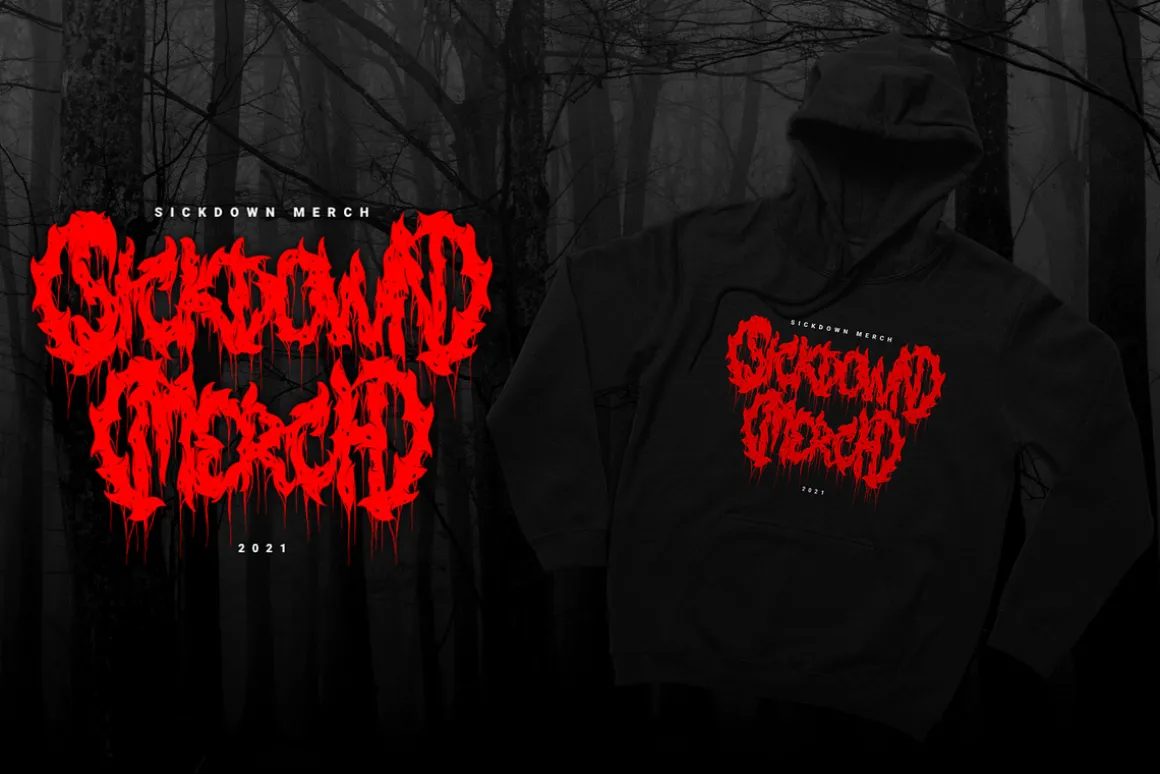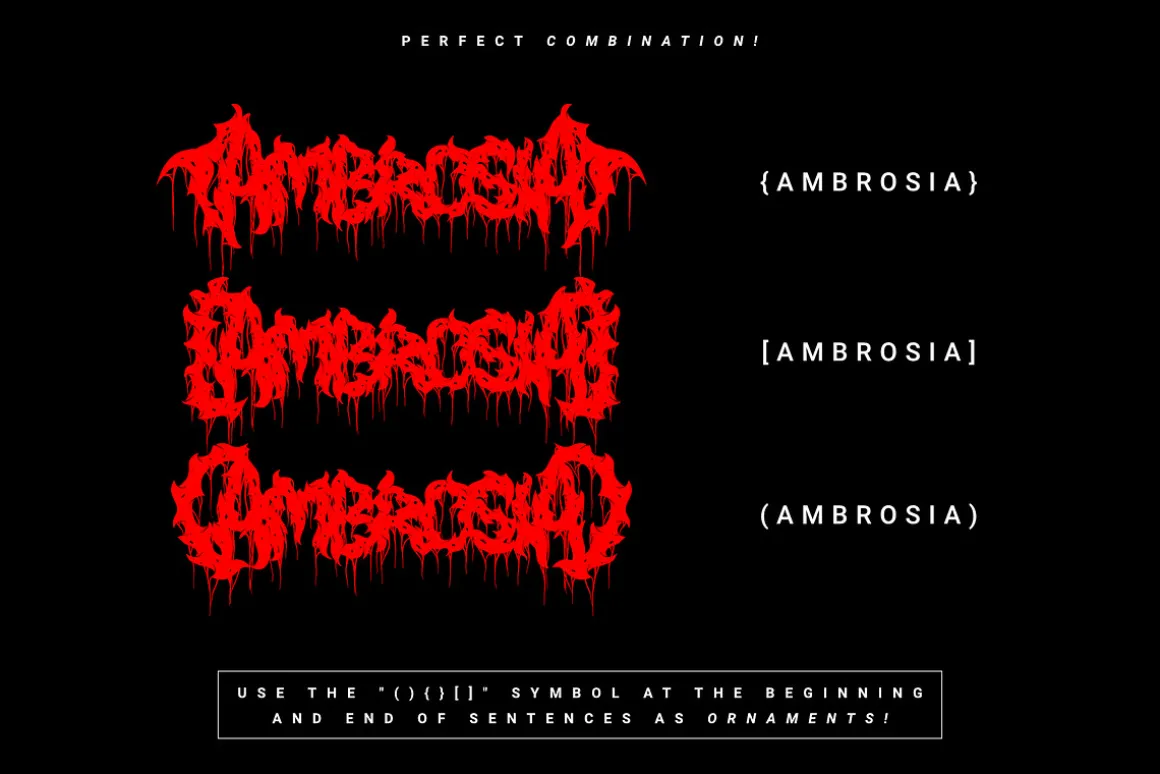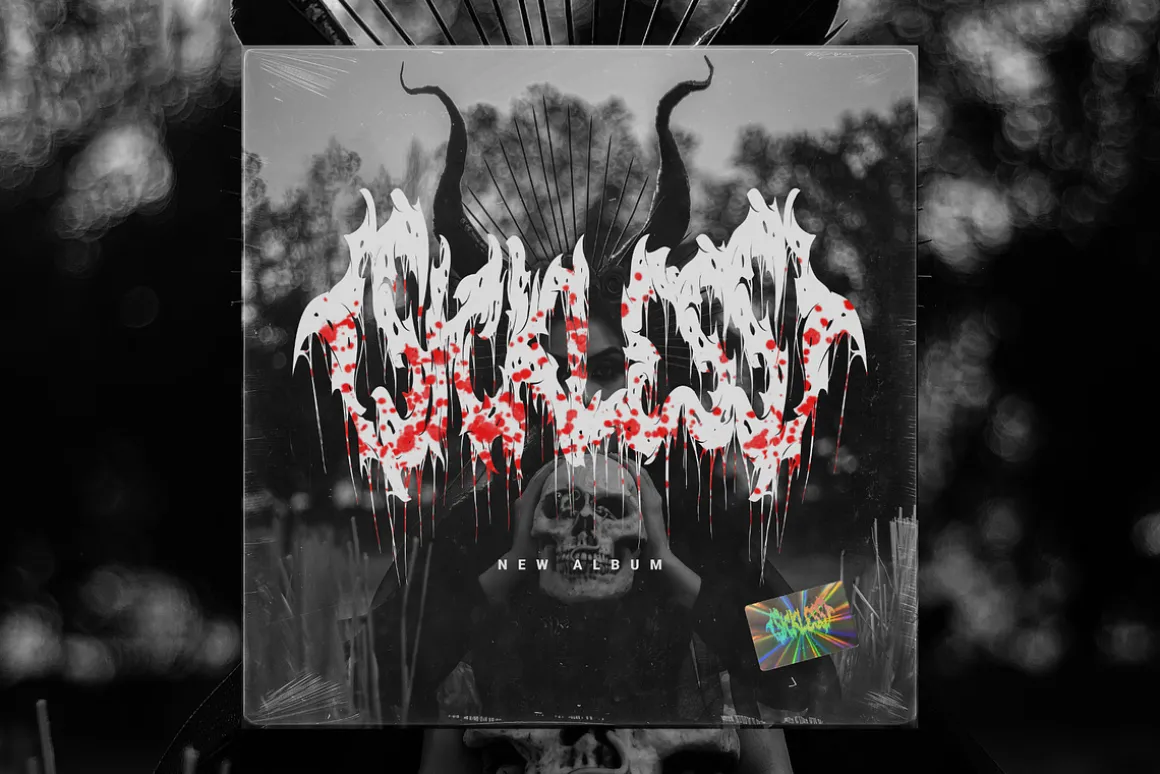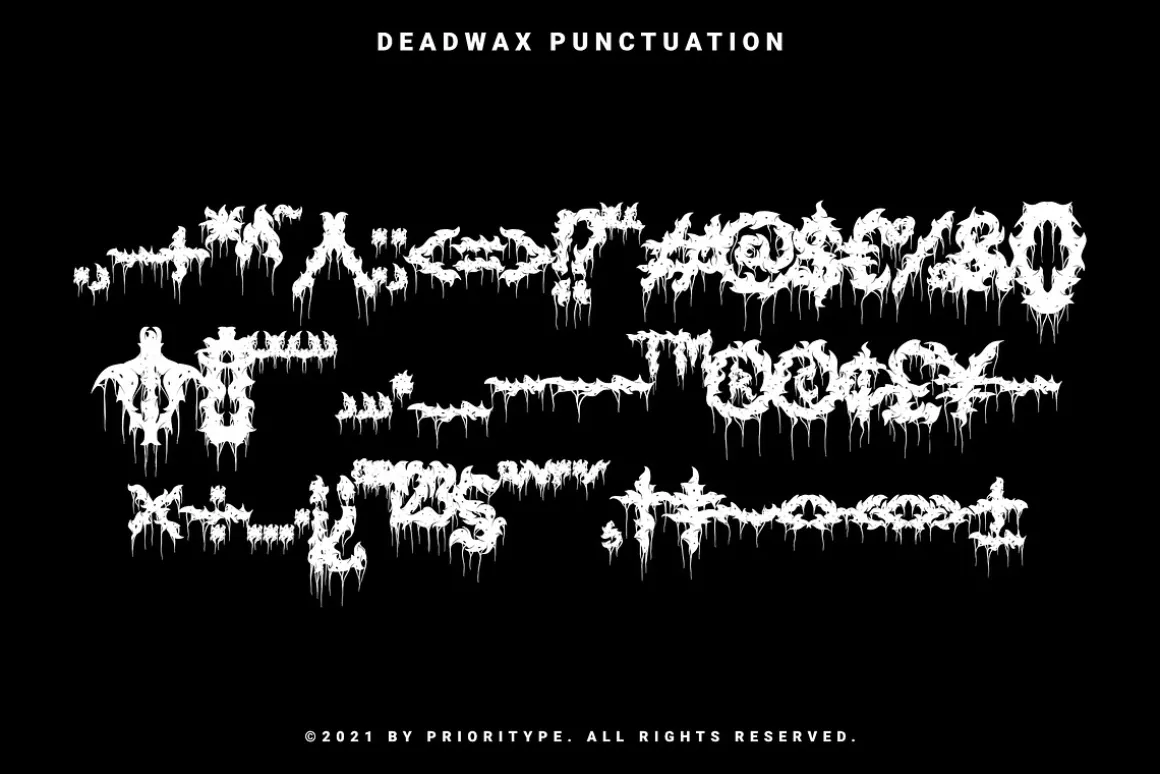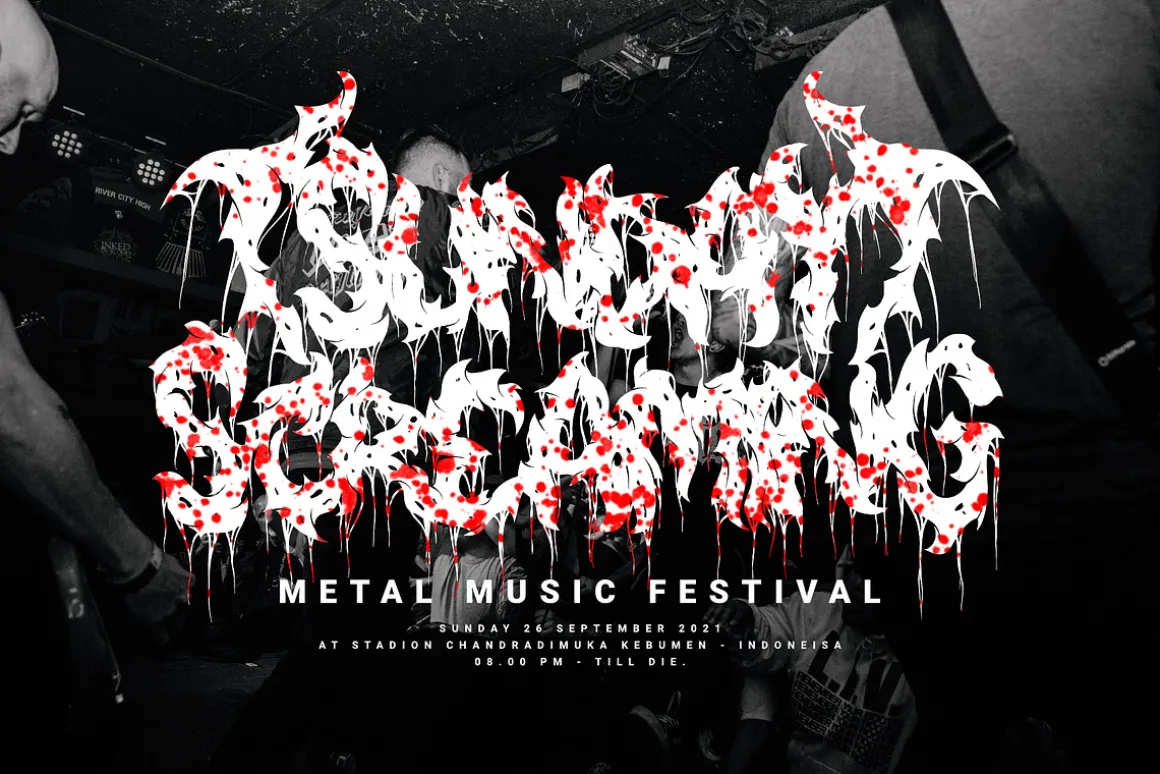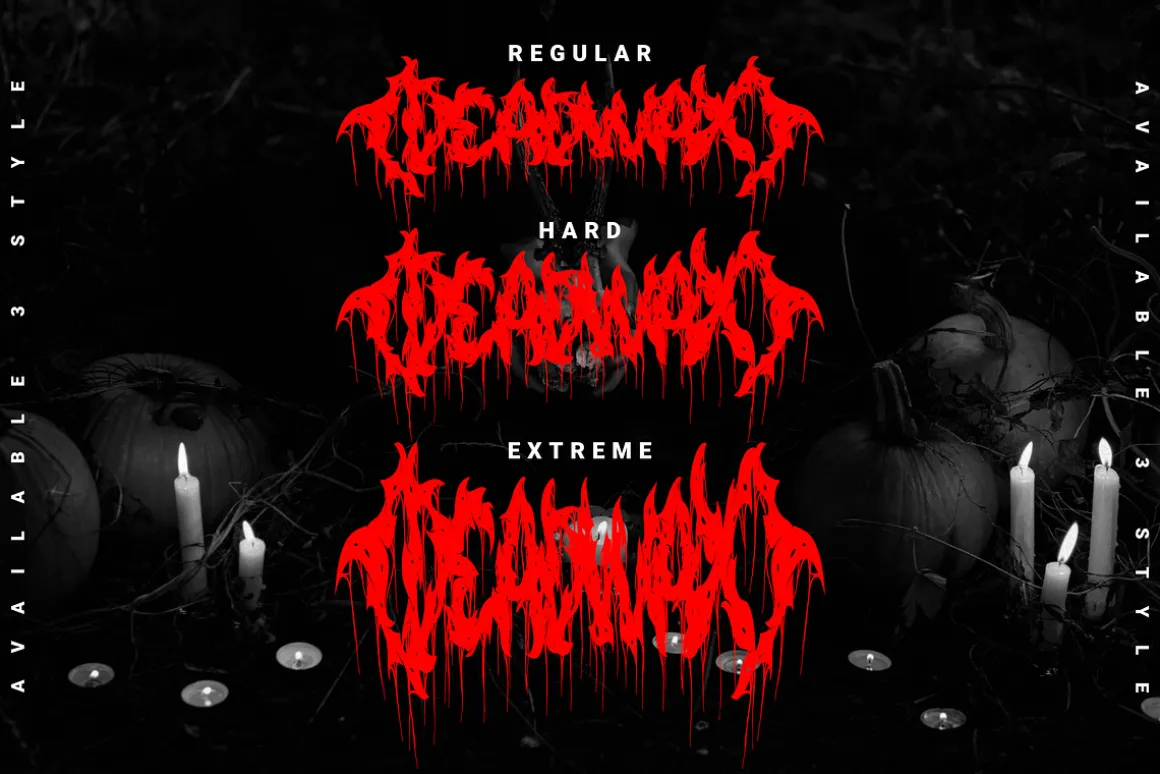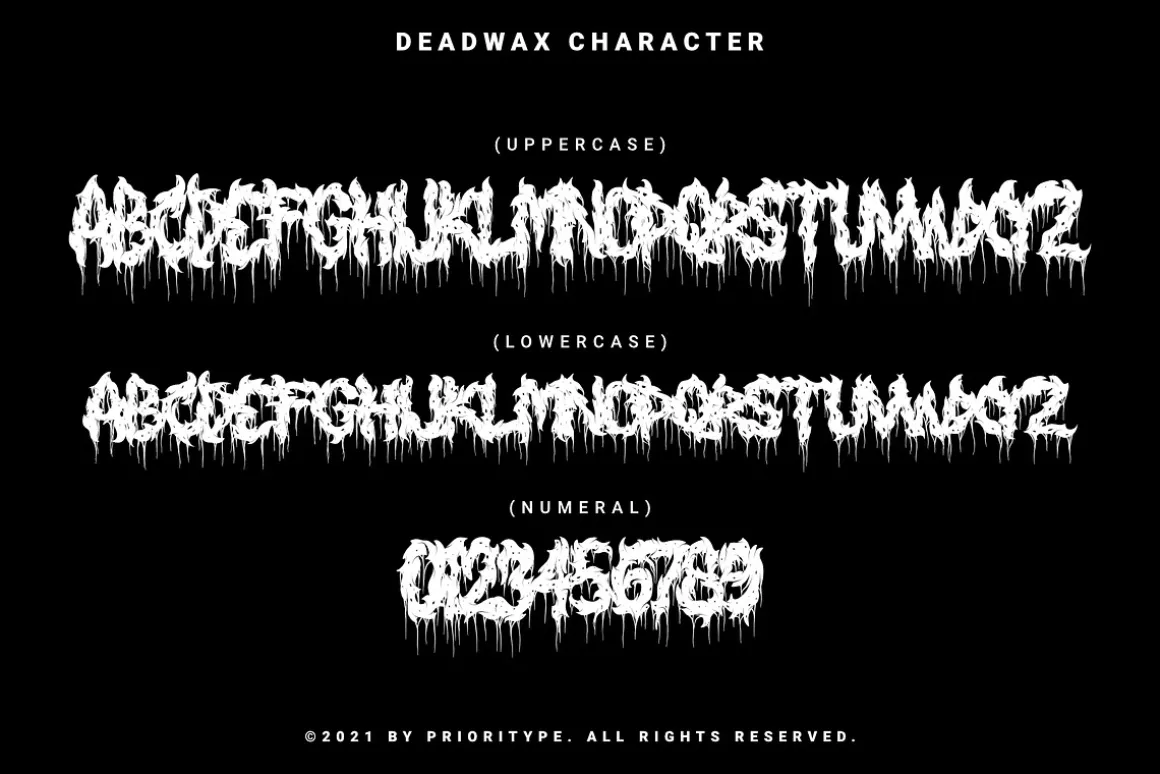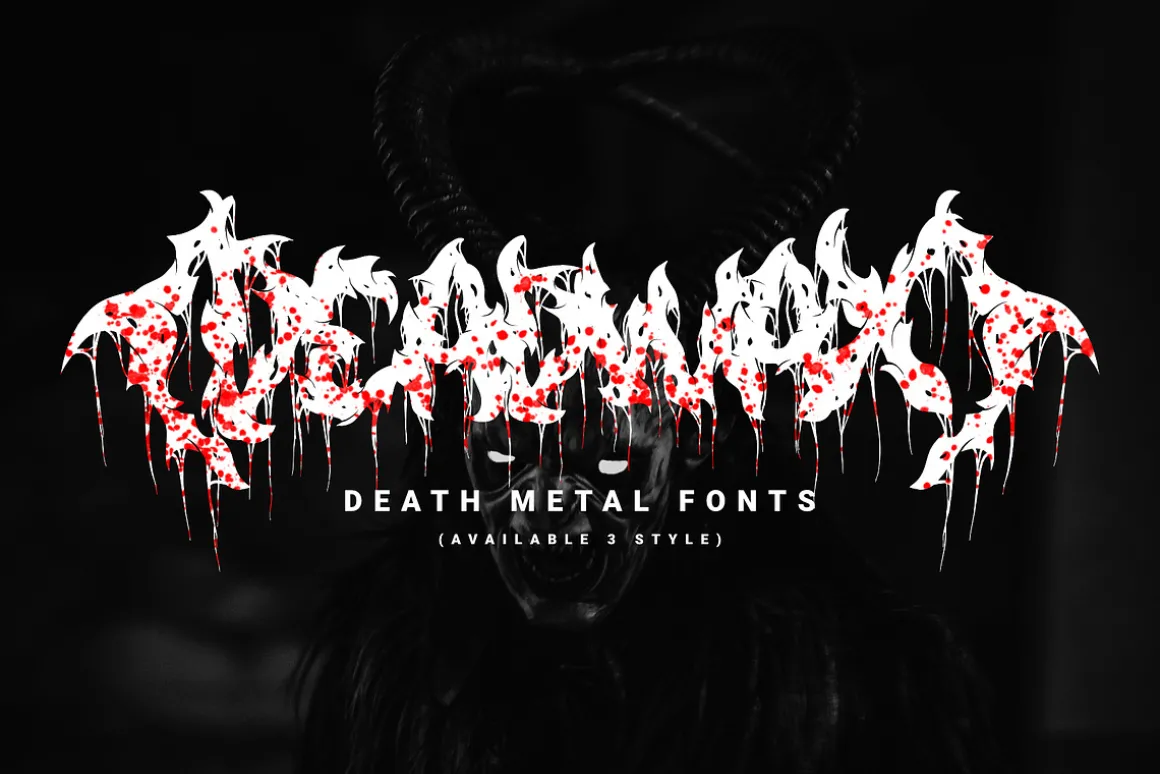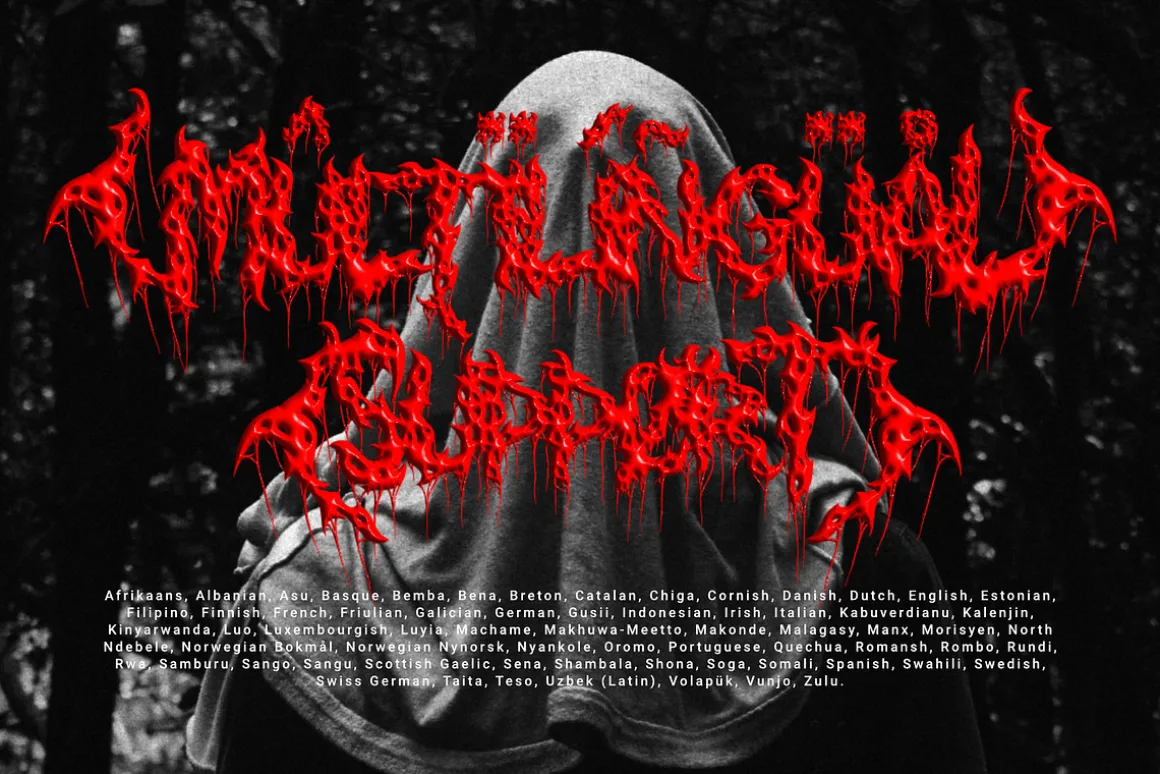
Deadwax – Death Metal Fonts
This is it, the death metal font you are looking for with a brutal impression on each character. There are 3 styles where each letter is drawn one by one accompanied by loud music to get the feel.
Very cool and suitable for design projects such as logos, clothing brands, posters, horror movies, album covers and many more and ready to be typed.
- Features: Uppercase, Lowercase, Numeral, Punctuation, Multilingual.